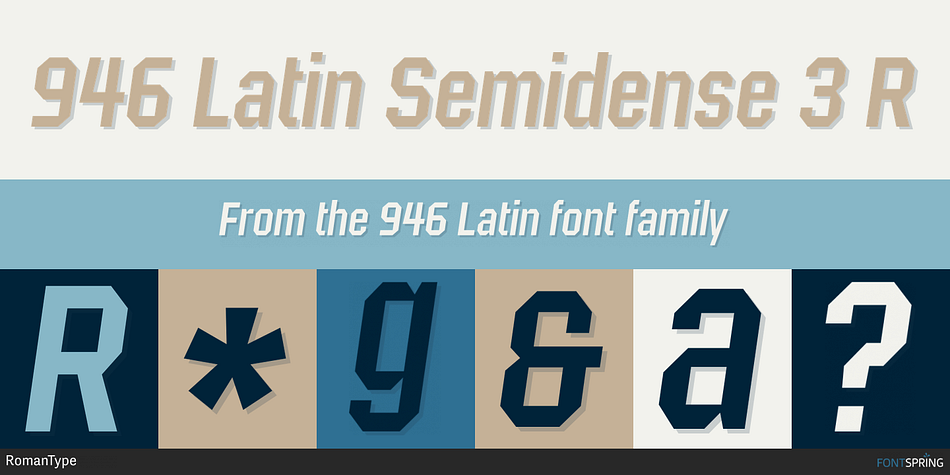
946 Latin Semidense 3 R
946 Latin is a sans serif font family. This typeface has seventy-five styles and was published by RomanType.
946 is a multilingual techno-style family developed by Berlin-based type designer Roman Wilhelm (RomanType). While more and more text families have recently been extended to a multilingual and multi-script level, not so much attention has been given to the more decorative styles. The 946 family does exactly that.
A lot of care has been given to the various diacritics: they were designed a little more brutal, a little more European than with some other fonts of this category. Do also watch out for the non-Latin legs of this family.
946 is inspired by electronic music. When Roman found a second-hand Roland TR-606 drum machine in a store in his hometown back in 1995, he started to hang out with would-be DJs and musicians, trying to play the beats that went around the globe. When he started to study visual communication three years later, he was assigned the matriculation number of 946, which has now become the name of this family.